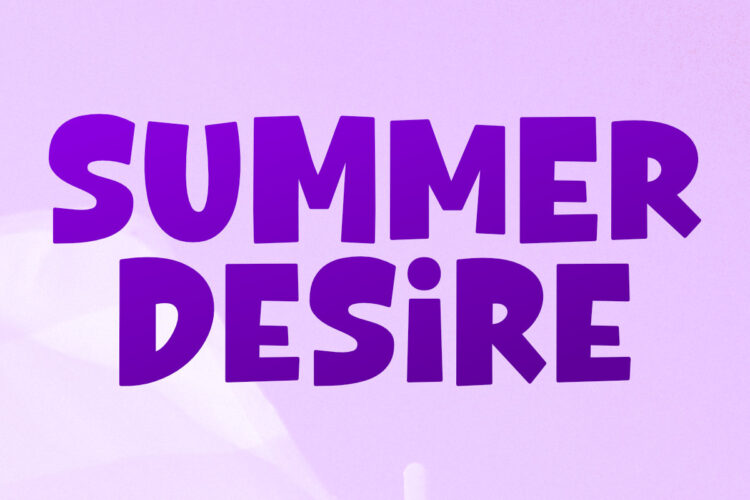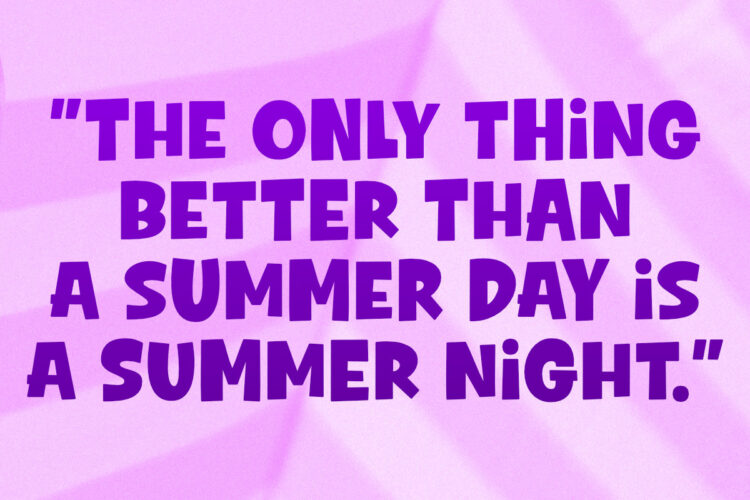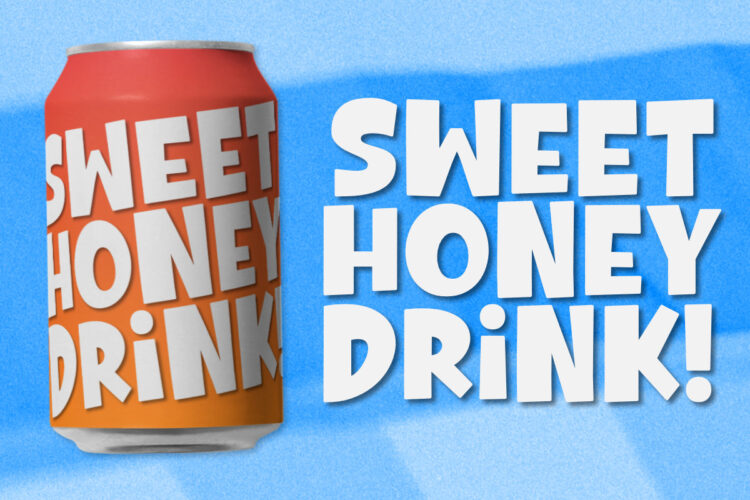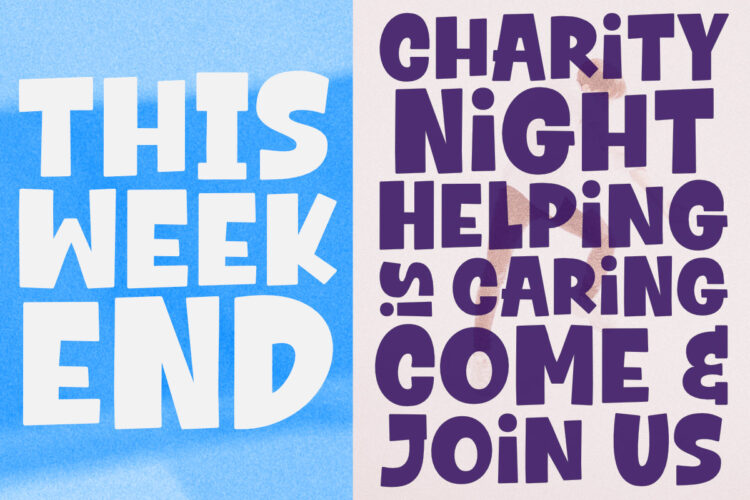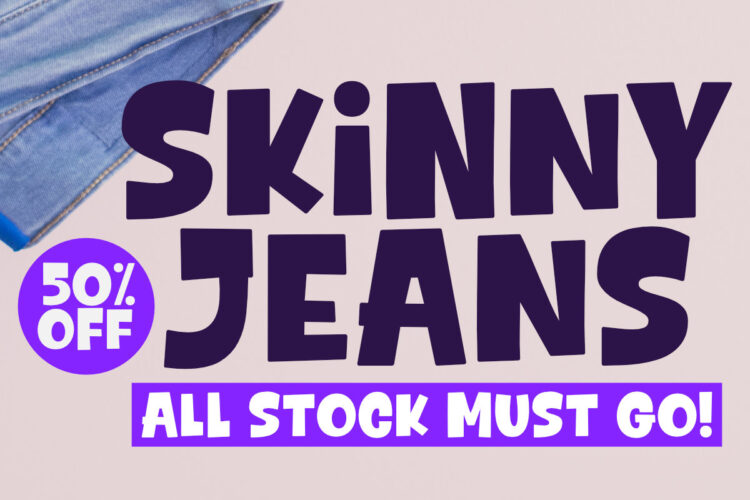
Summer Desire is an original typeface that’s perfect for all of your summertime and happy designs! Use Summer Desire in your designs to create a lively, optimistic mood. Its playful, and lighthearted vibe is perfect for any design that needs that extra oomph. Make your next blog post, social media update, or poster the most memorable thing your customers have ever seen! And you can also use it for logos, business cards, posters, headlines, T-shirts, product packaging, and more